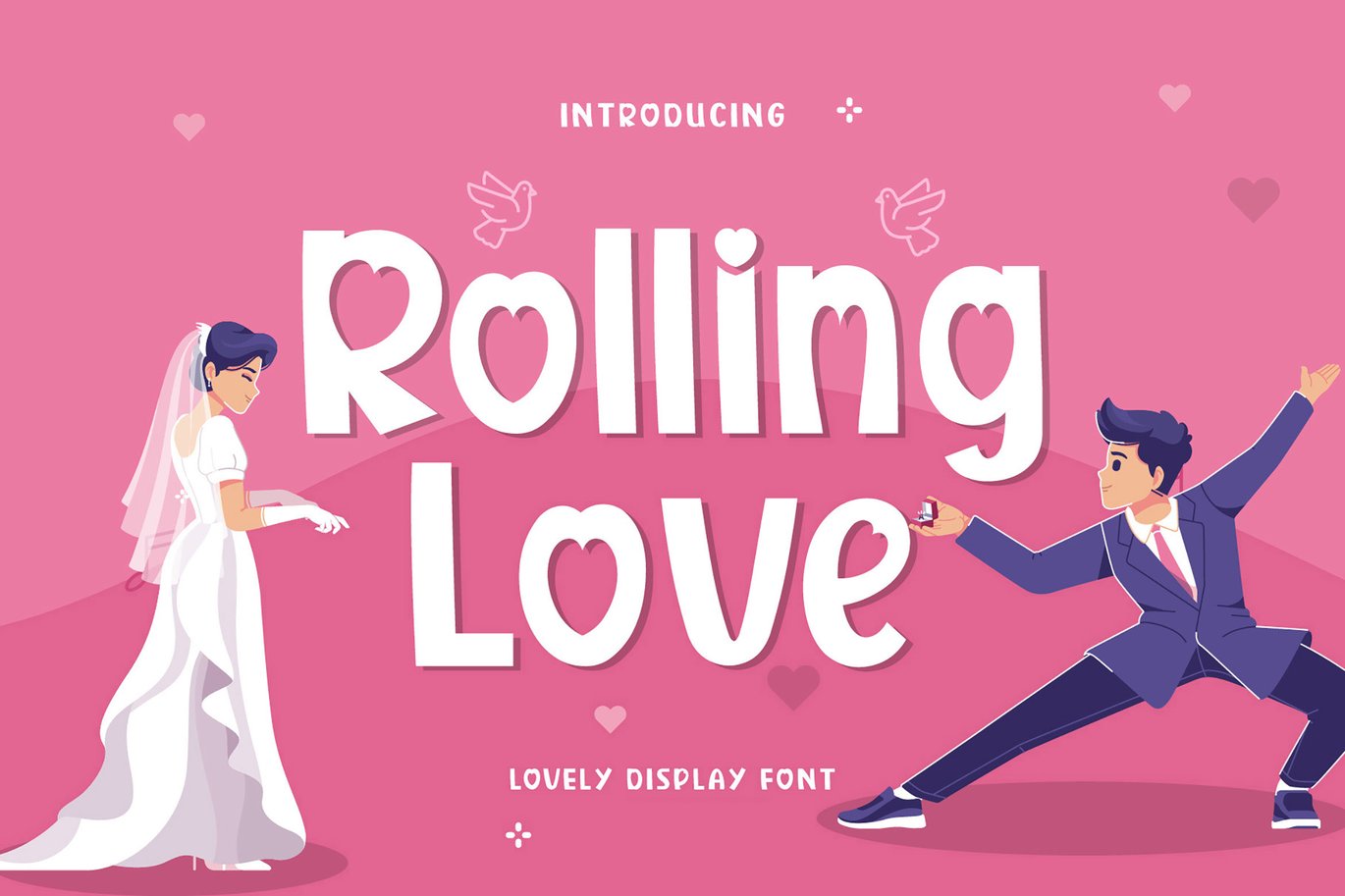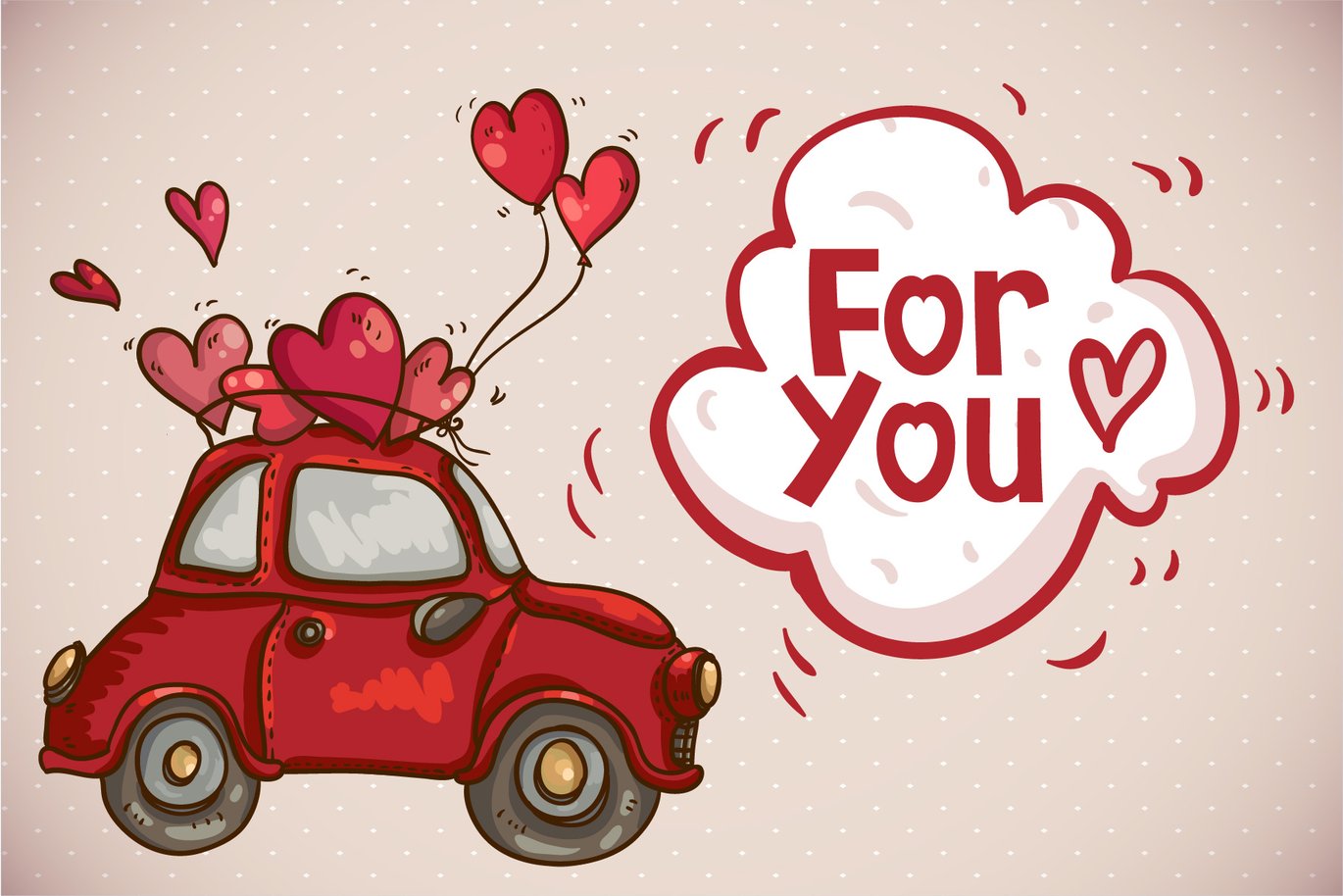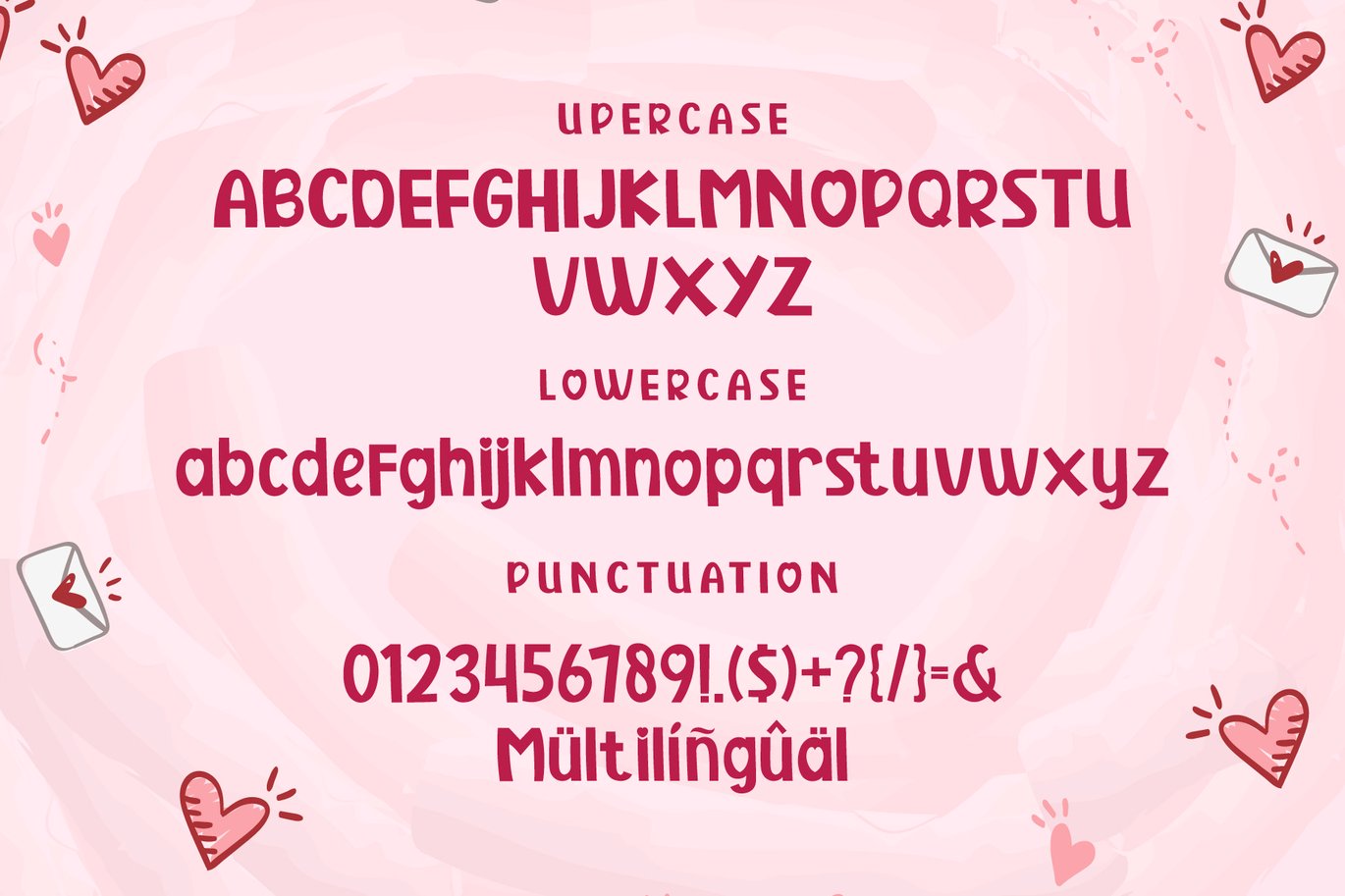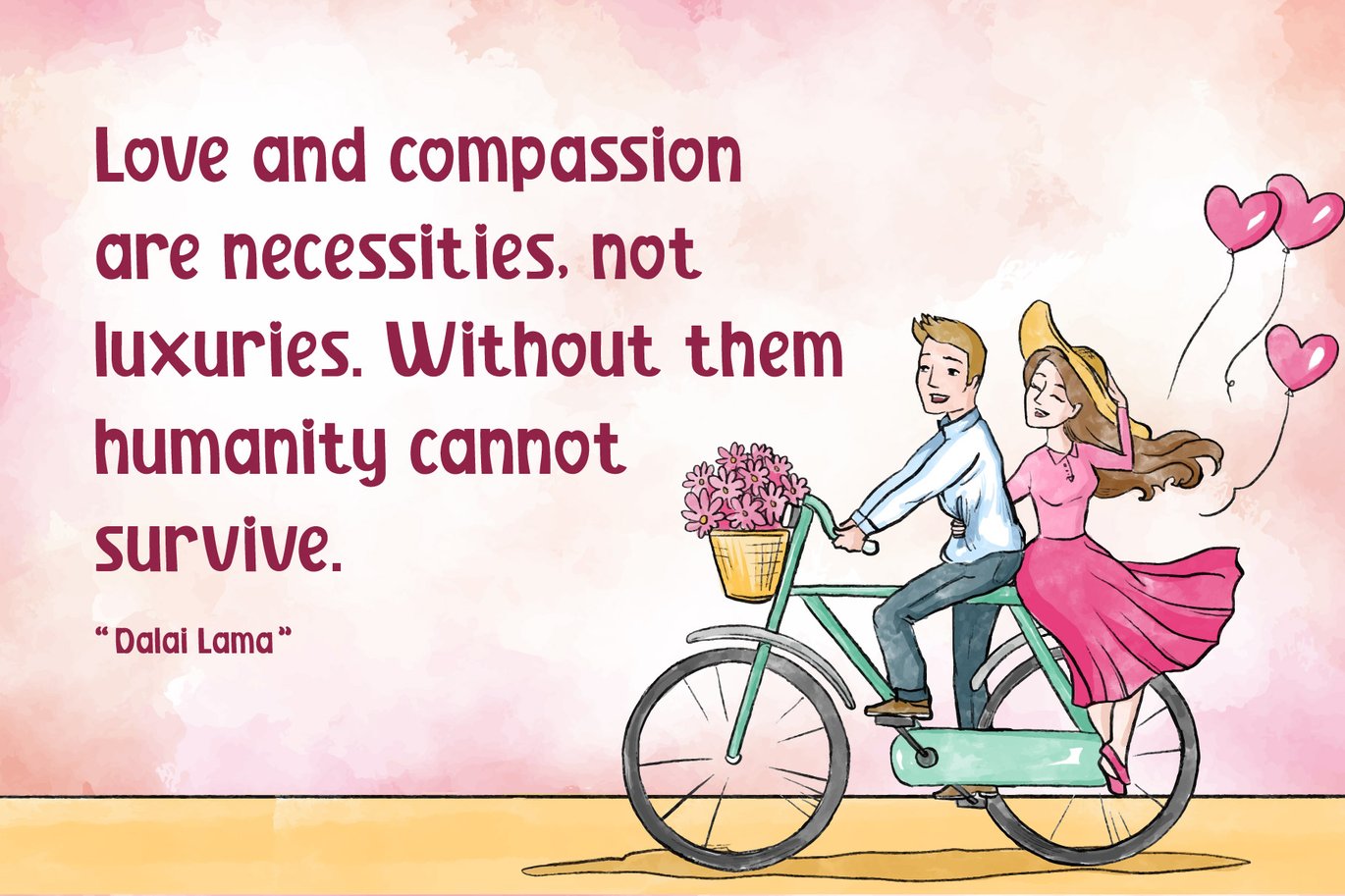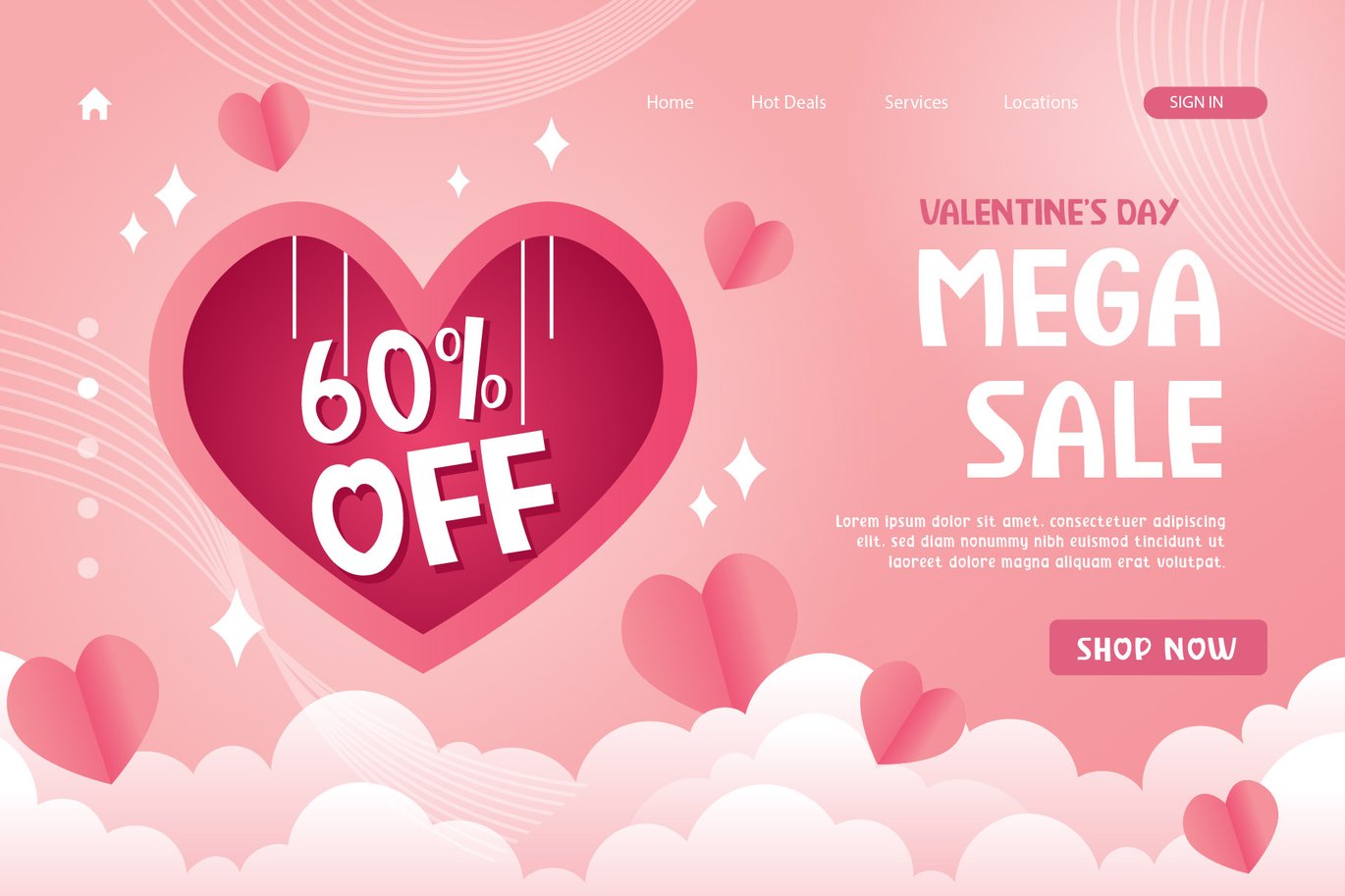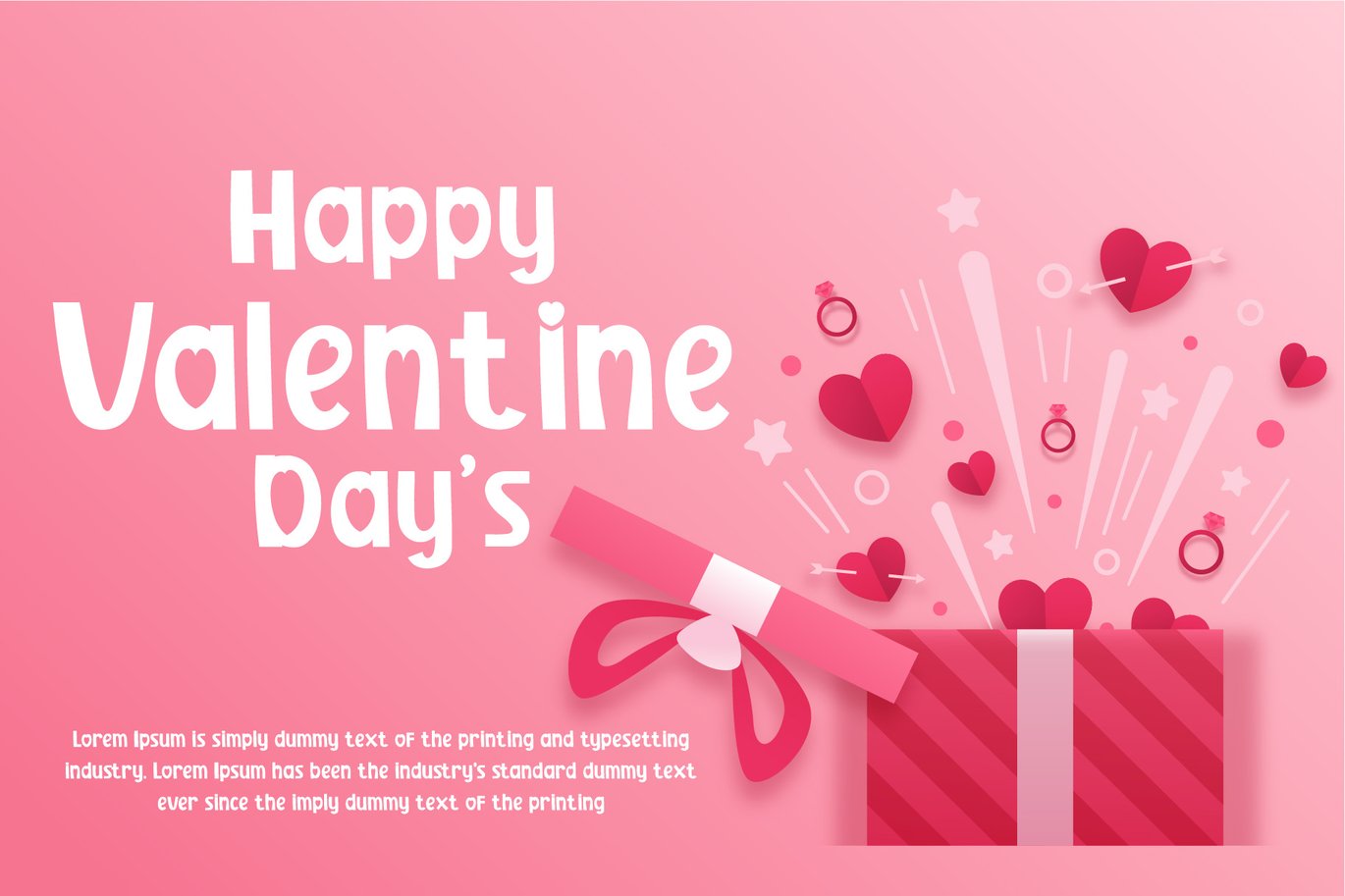
Rolling Love – Handcraft Display Font
Rolling Love is a lovely display. Rolling Love can be used for products such as handicrafts, product packaging, quotes, product design, craftsmen, labels, photography, watermarks, logos & branding. Everything can be accessed using software that supports Opentype, such as Adobe Indesign, Adobe CS Illustrator, Adobe Photoshop CC, and Corel Draw.